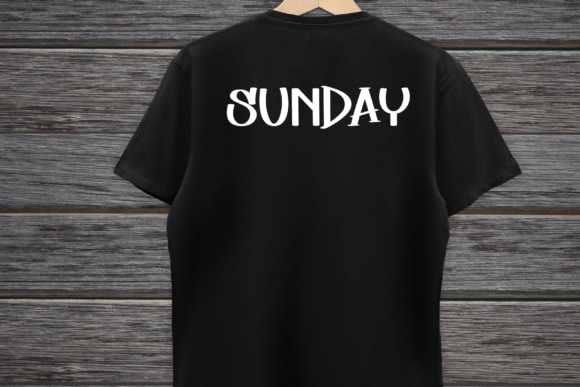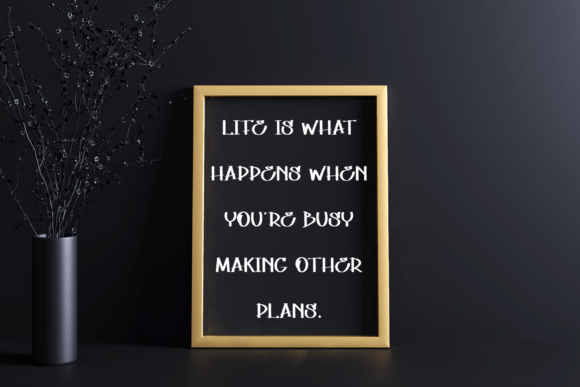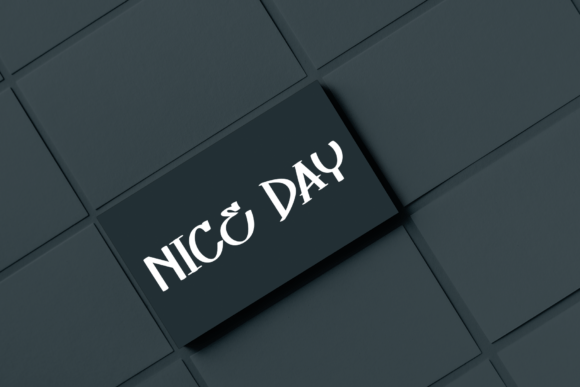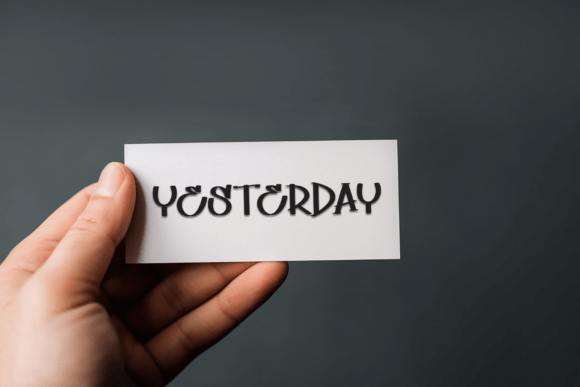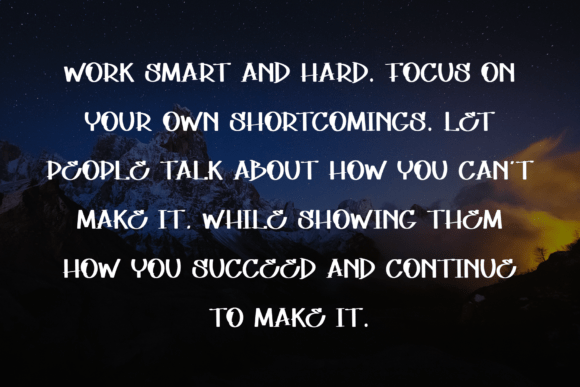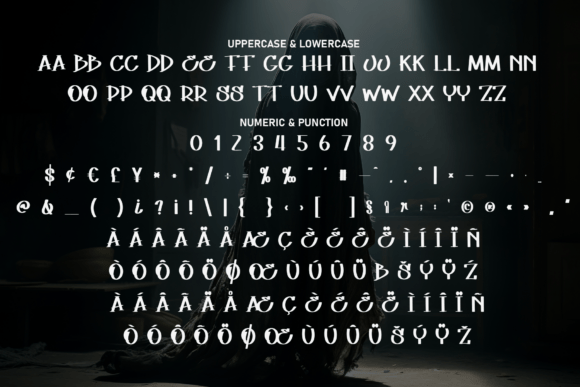
Introducing Ghost Spooky Font: The Perfect Blend of Simplicity and Friendliness
In the world of typography, fonts play a crucial role in conveying the tone and personality of a brand or design. For designers and crafters looking for a font that combines simplicity with a friendly, approachable vibe, Ghost Spooky Font is an excellent choice. This casual and neat display font is designed to capture the essence of modern handwritten typography with a polished finish, making it ideal for various design applications.
Design Characteristics of Ghost Spooky Font
Ghost Spooky Font boasts clean lines, balanced letterforms, and subtle rounded edges that give it a unique and charming appeal. The font’s design is characterized by:
- Clean Lines: The font features clean and crisp lines that provide clarity and precision, making it perfect for digital content and print designs.
- Balanced Letterforms: The letterforms are carefully crafted to ensure balance and harmony, resulting in a visually appealing and cohesive look.
- Subtle Rounded Edges: The subtle rounded edges add a touch of warmth and friendliness to the font, making it approachable and inviting.
Versatility and Applications of Ghost Spooky Font
Ghost Spooky Font is a versatile font that can be used in a variety of design applications, including:
- Branding: The font’s friendly and approachable vibe makes it perfect for branding projects that require a warm and inviting tone.
- Headlines: The font’s clean lines and balanced letterforms make it ideal for headlines that require clarity and impact.
- Packaging: The font’s polished finish and charming appeal make it suitable for packaging designs that require a modern and sophisticated look.
- Digital Content: The font’s crisp structure and versatile style make it perfect for digital content, such as blog posts, social media graphics, and website headers.
Benefits of Using Ghost Spooky Font
Ghost Spooky Font offers several benefits to designers and crafters, including:
- Warm and Inviting Touch: The font adds a warm and inviting touch to any design, making it perfect for projects that require a friendly and approachable tone.
- Clarity and Charm: The font delivers clarity and charm in equal measure, making it suitable for a wide range of design applications.
- Versatility: The font’s versatile style and crisp structure make it perfect for various design projects, from branding and headlines to packaging and digital content.
Tips for Using Ghost Spooky Font Effectively
To get the most out of Ghost Spooky Font, here are some tips for using it effectively:
- Pair with Other Fonts: Pair Ghost Spooky Font with other fonts to create a unique and visually appealing contrast.
- Experiment with Colors: Experiment with different colors to find the perfect combination that complements the font’s friendly and approachable vibe.
- Use for Headlines and Titles: Use Ghost Spooky Font for headlines and titles to add a touch of warmth and friendliness to your design.
Ghost Spooky Font is a casual and neat display font that combines simplicity with a friendly, approachable vibe. With its clean lines, balanced letterforms, and subtle rounded edges, it captures the essence of modern handwritten typography with a polished finish. Ideal for branding, headlines, packaging, and digital content, Ghost Spooky Font adds a warm and inviting touch to any design. Whether you’re a designer or crafter, this font is sure to deliver clarity and charm in equal measure.